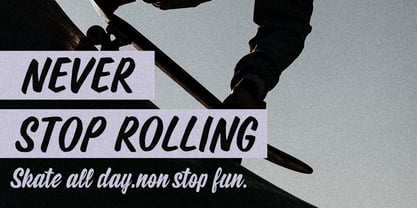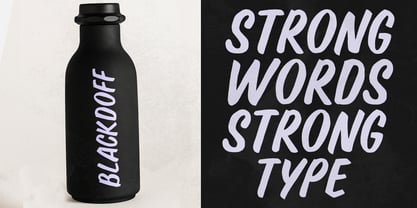
Safonamix Wonders Script
por Youngtype
La familia tipográfica Safonamix Wonders Script fue diseñada por Naufal Paramata y publicada por Youngtype. Safonamix Wonders Script contiene 2 estilos y opciones de paquete familiar. Más información sobre esta familia
Safonamix Wonders & Safonamix Wonders Script is a hand brush font made with brushes and ink. This typeface is ideal for use in thick watercolor designs or handwriting styles, such as blog titles, posters, wedding elements, t-shirts, clothing, book covers, business cards, greeting cards, branding, merchandise etc.
Diseñadores: Naufal Paramata
Fundición: Youngtype